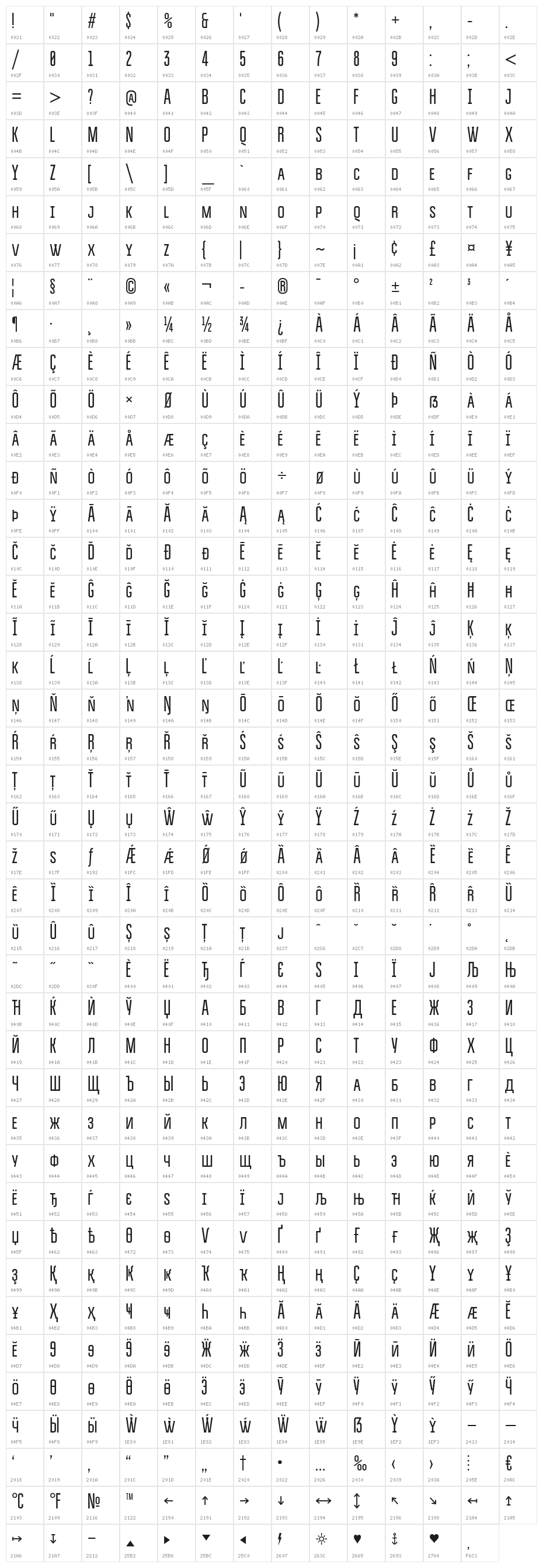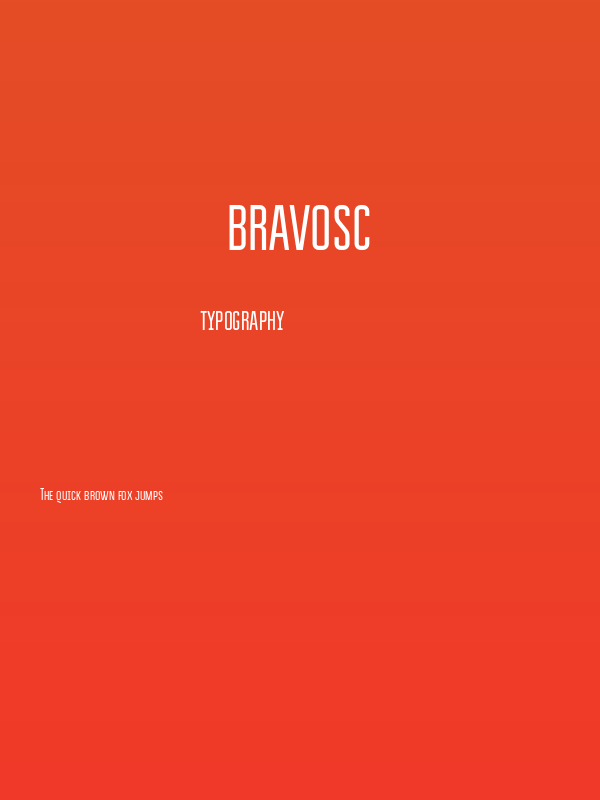
BravoSC Font
BravoSC Description
This font features a bold and modern sans-serif style with a strong geometric structure. The uppercase letters are tall and narrow, giving a condensed appearance, while the lowercase letters maintain a consistent height that complements the uppercase. The numerals are uniform in width, ensuring readability and balance. Special characters are designed to match the overall aesthetic, providing a cohesive look across all glyphs. The font's clean lines and minimalistic design make it suitable for a variety of applications, from digital to print media.
| Proposed Projects | Ideal for branding, advertising, headlines, and digital interfaces where a modern and bold statement is needed. |